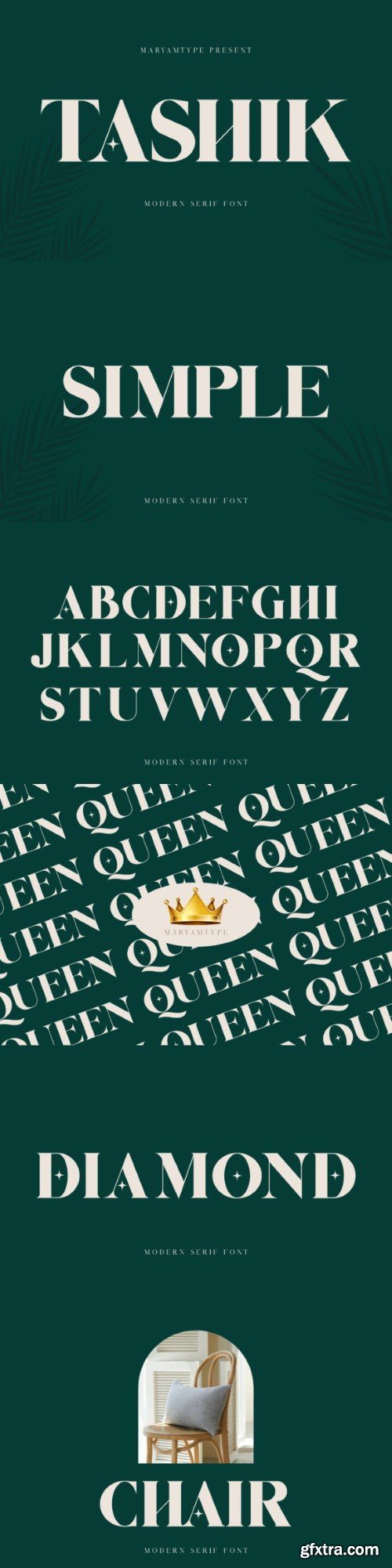
塔希克字体
Tashik is a modern and stylish serif font that exudes confidence and class. No matter the topic, this font will be an incredible asset to your fonts’ library, as it has the potential to elevate any creation.